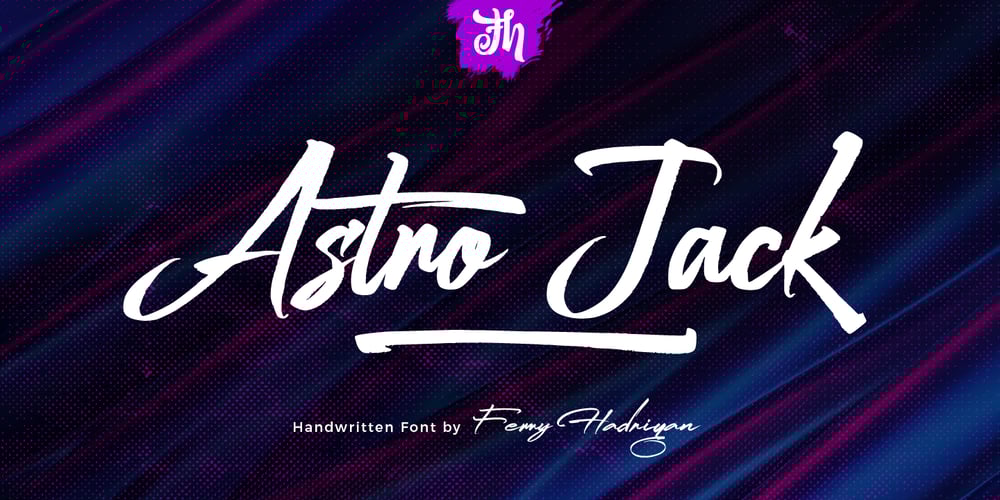
Astro Jack
Astro Jack font
Astro Jack Font Family was designed by Ferry Hadriyan and published by FHFont. Astro Jack contains 2 styles and family package options. Astro Jack is script font with a hand-lettering, brush style and OpenType features. It is suitable for design, element design, weddings, events, t-shirts, logos, badges, stickers, and awesome work.Features Of The Font:- All Standard Character, Symbol, Multi-lingual Support, Ligature, Stylistic Set, and Swashes.- PUA Encode